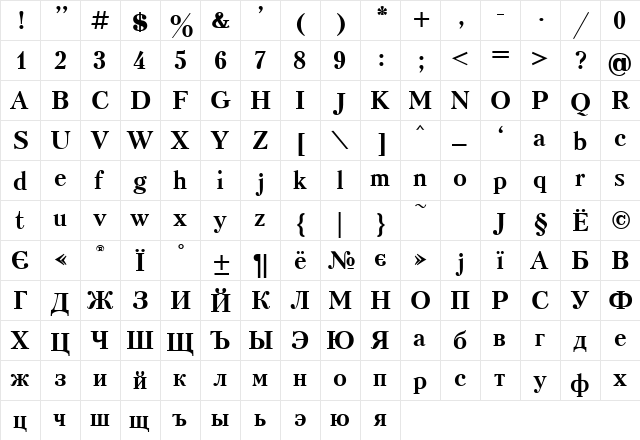
KudrashovC Bold Font Preview
KudrashovC Bold
KudrashovC Bold Font Details
Design Context for KudrashovC Typeface
KudrashovC offers clean, dependable letterforms without strong stylistic allegiance, making it a practical choice for designers who need flexibility. Its bold stroke weight gives it real presence on the page.
Pro Tip: Use KudrashovC in both headline and body roles to test its range before committing to a single application.